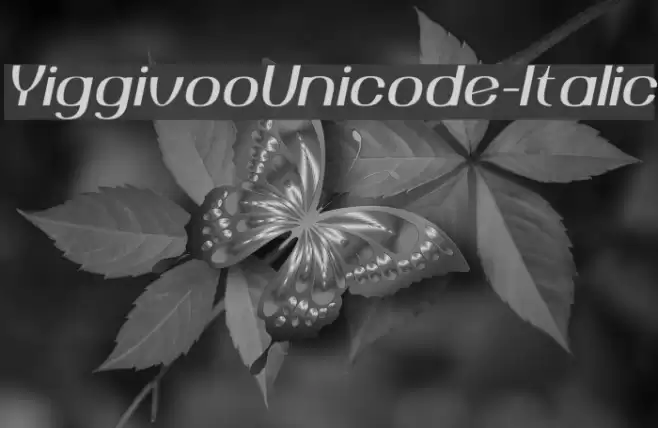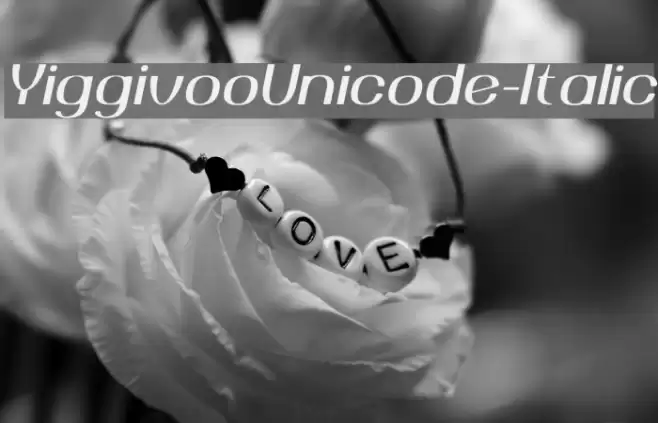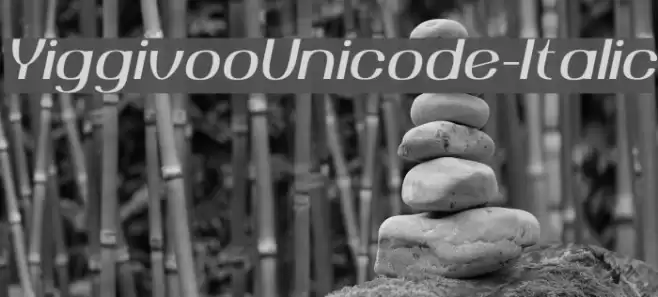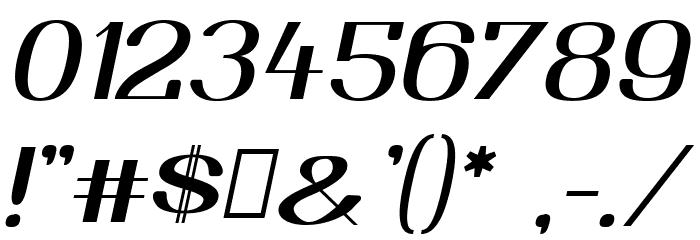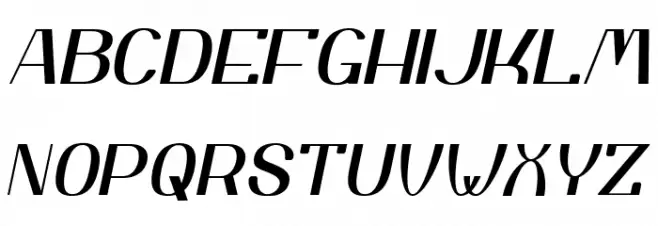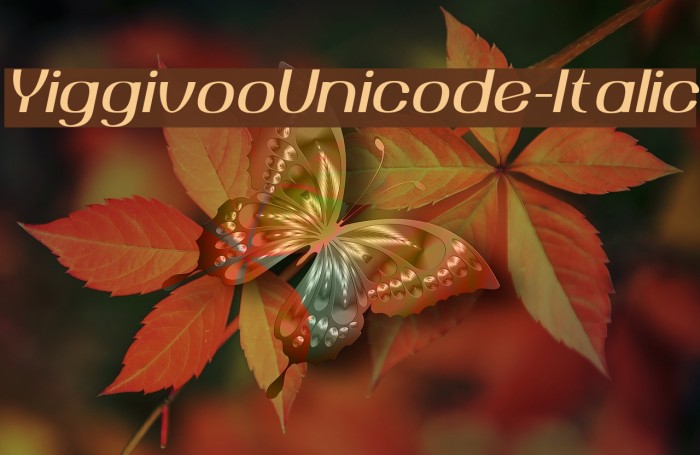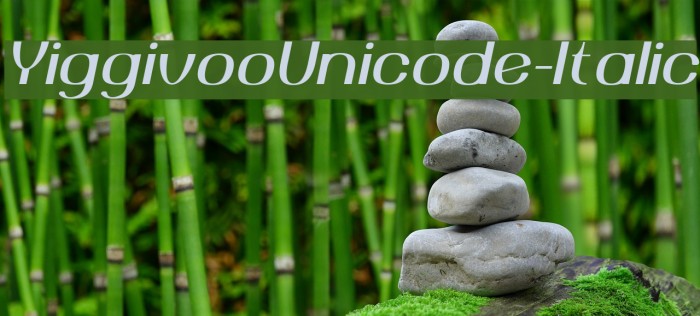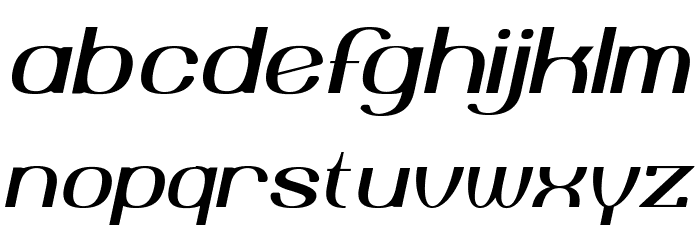
YiggivooUnicode-Italic Font
YiggivooUnicode-Italic Description
This font features a modern and elegant italic style with a distinct slant, giving it a dynamic and sophisticated appearance. The characters are well-defined with a slight contrast in stroke thickness, adding to its readability and visual appeal. The uppercase letters are tall and slightly narrow, while the lowercase letters maintain a consistent flow with subtle curves. The numerals are clear and proportional, matching the overall style of the font. Special characters are included, maintaining the same italicized and sleek design, making it versatile for various uses.
A modern italic font with elegant slant and subtle stroke contrast from Uncategorized fonts.
- Proposed Projects: Ideal for fashion magazines, branding projects, elegant invitations, and modern web design.
- Overall Style: Modern, Elegant
- Use Case: Headlines, Branding, Invitations